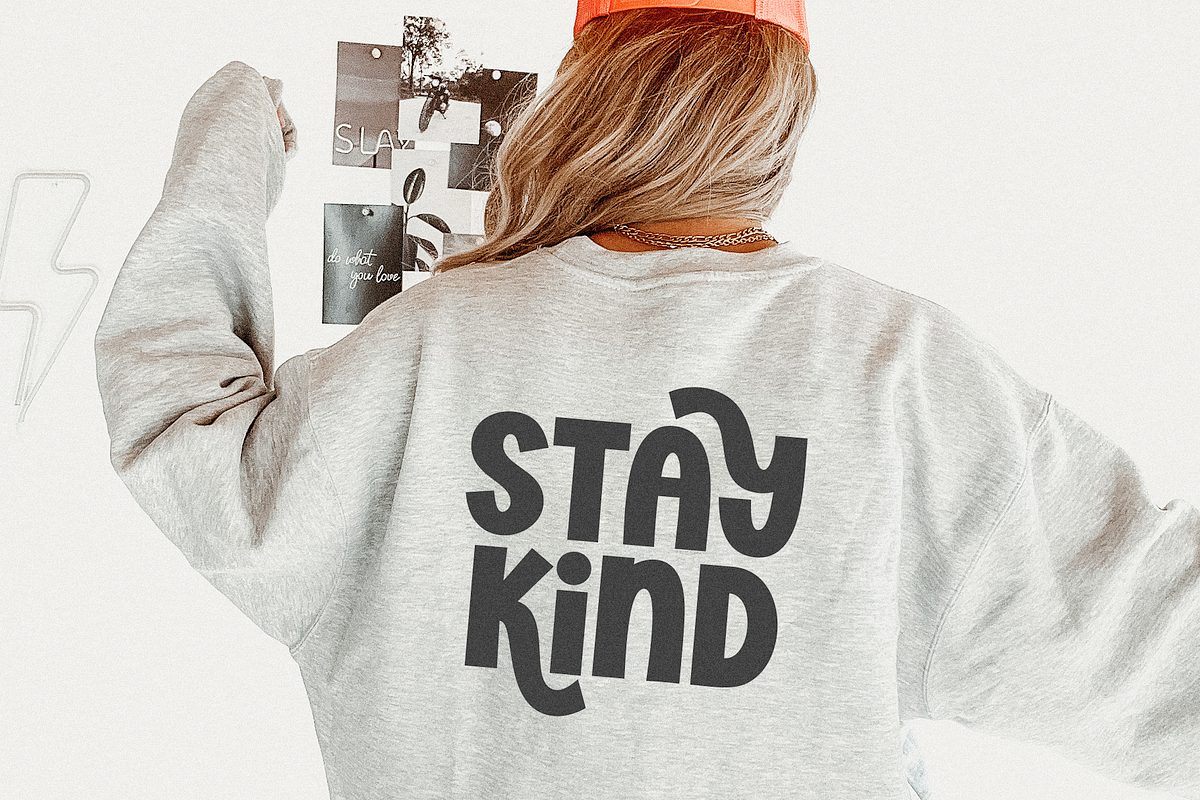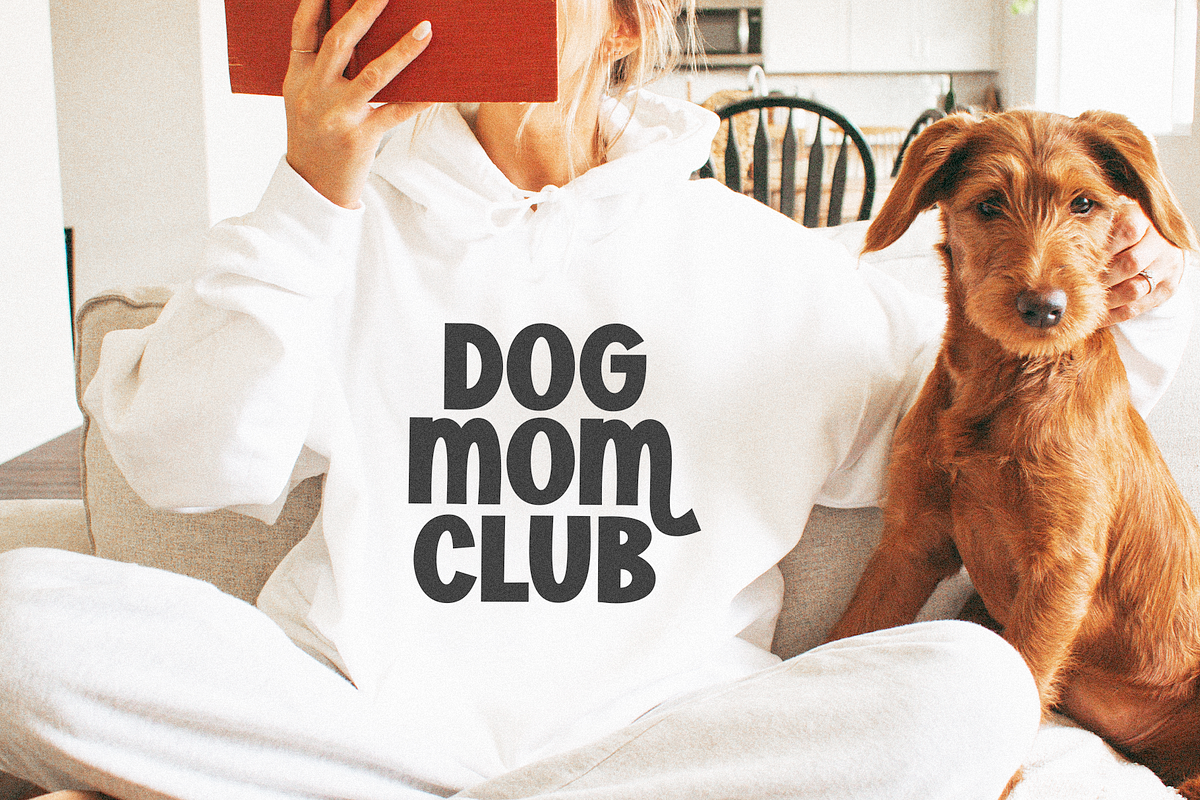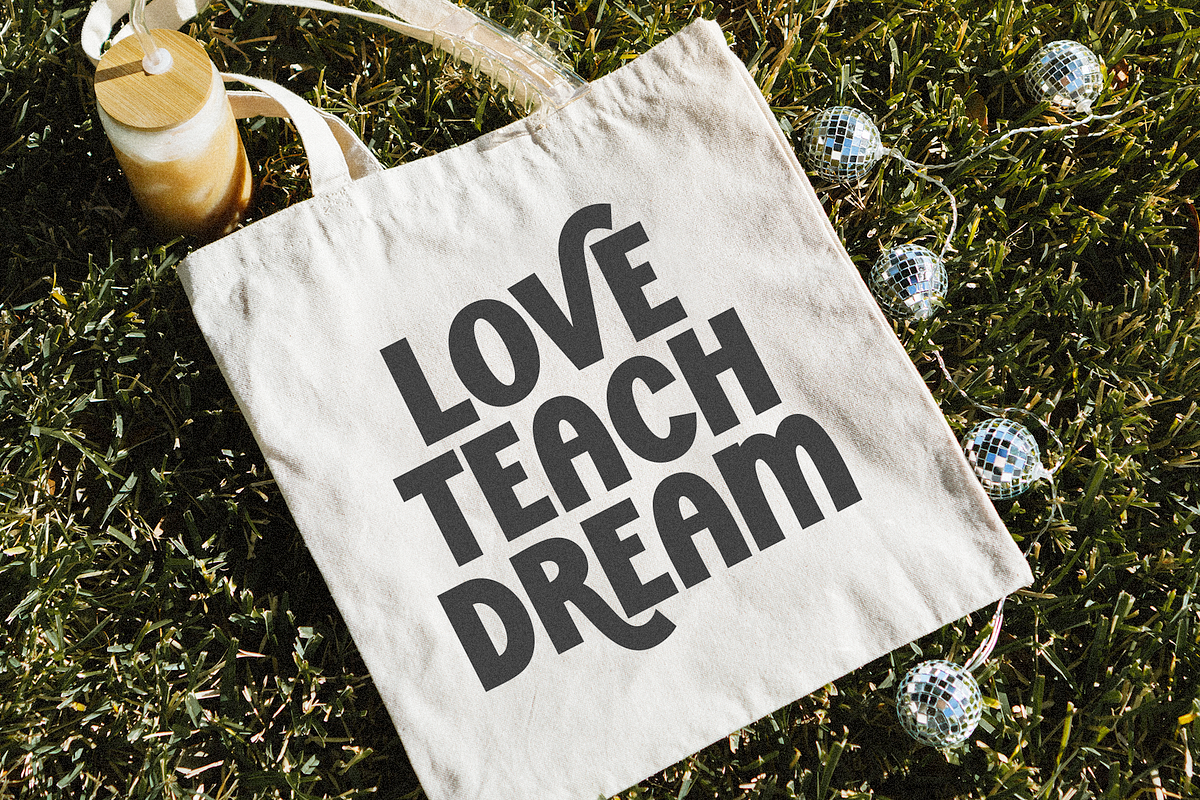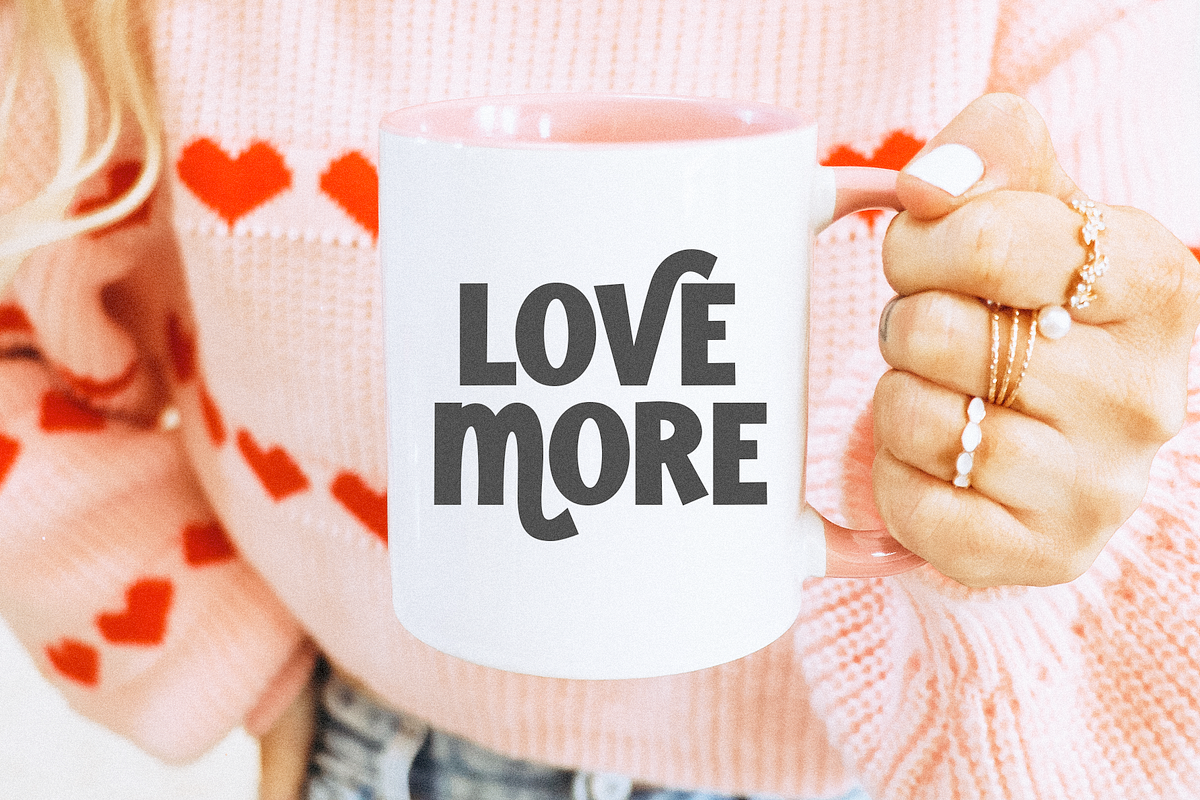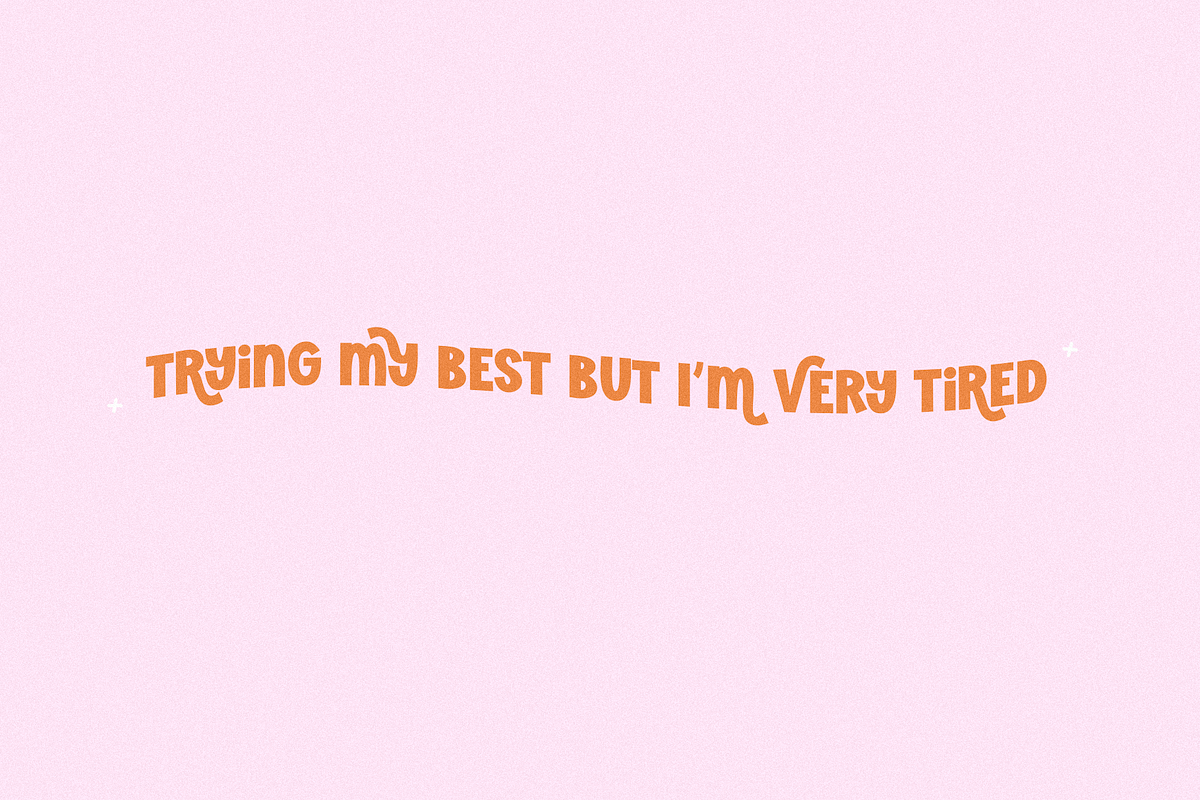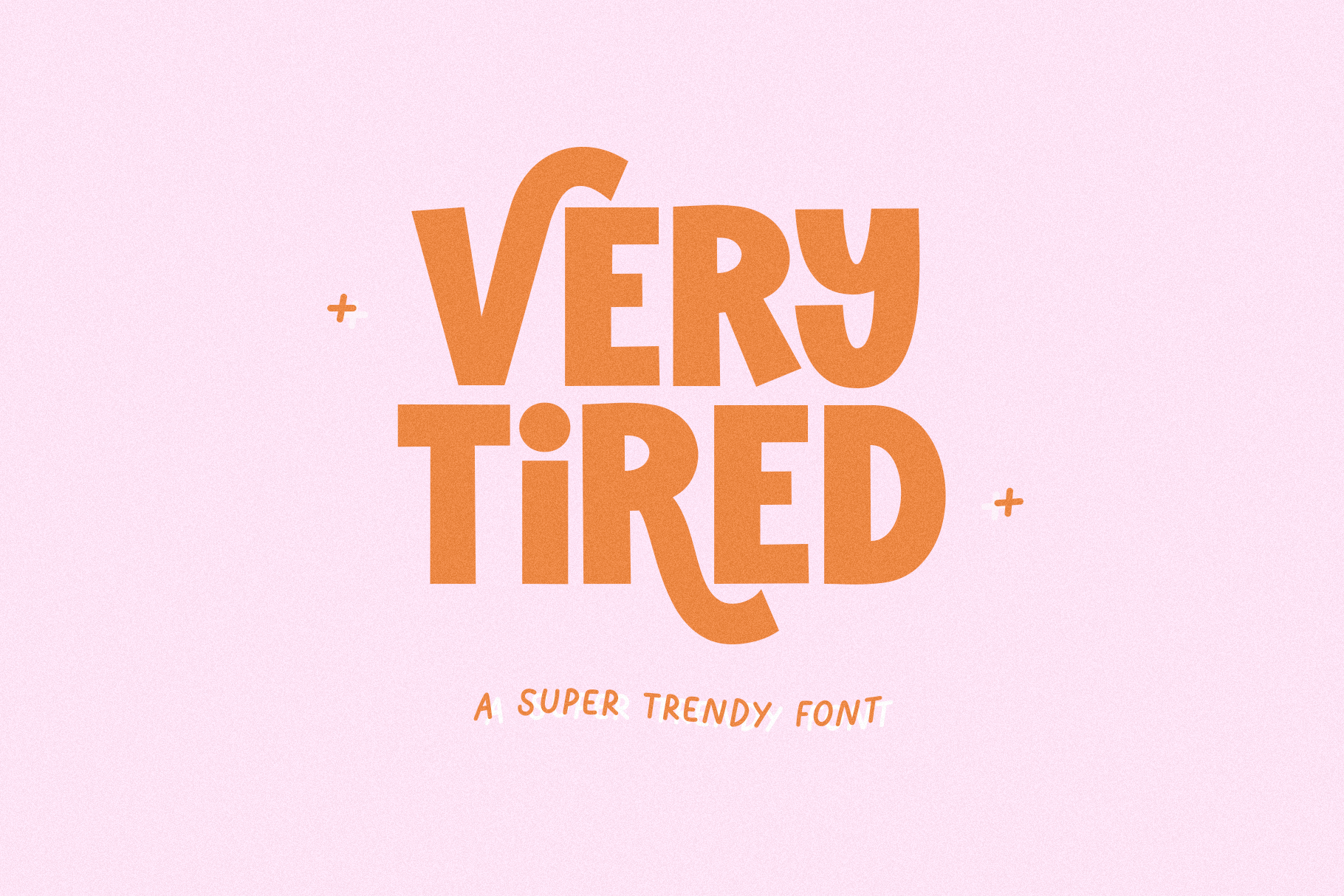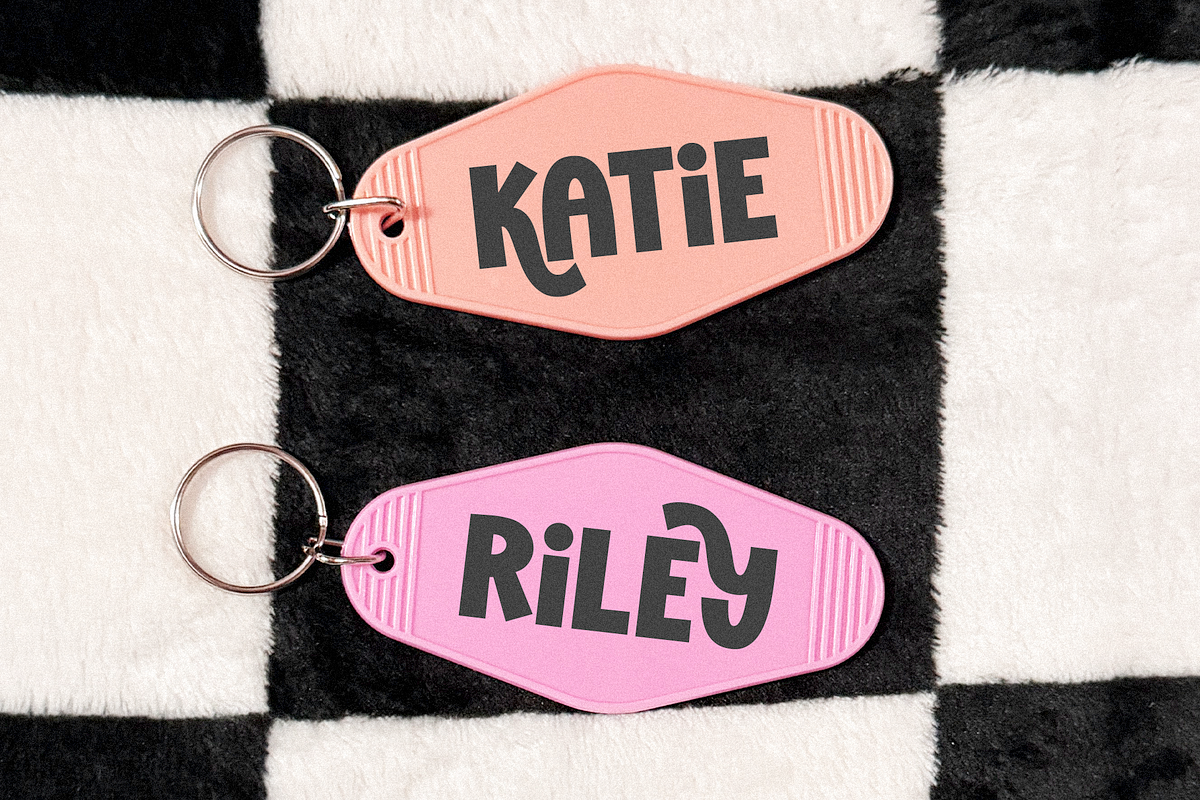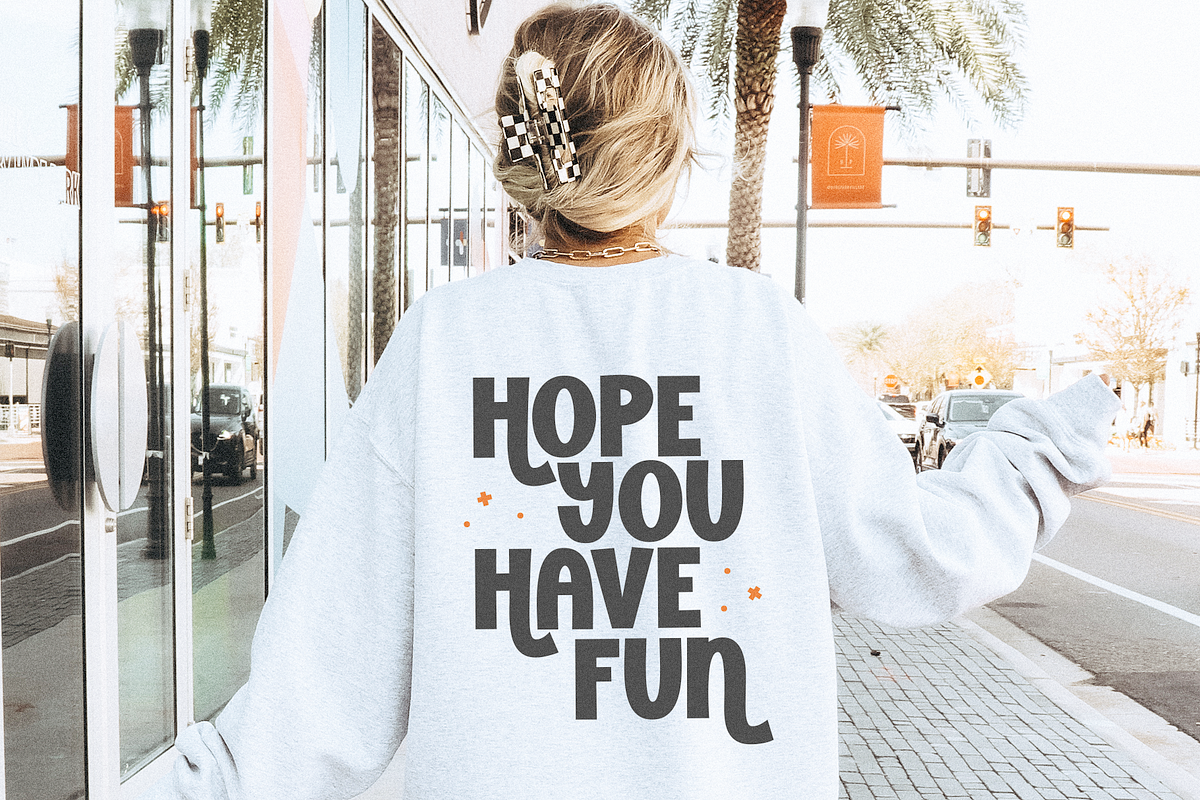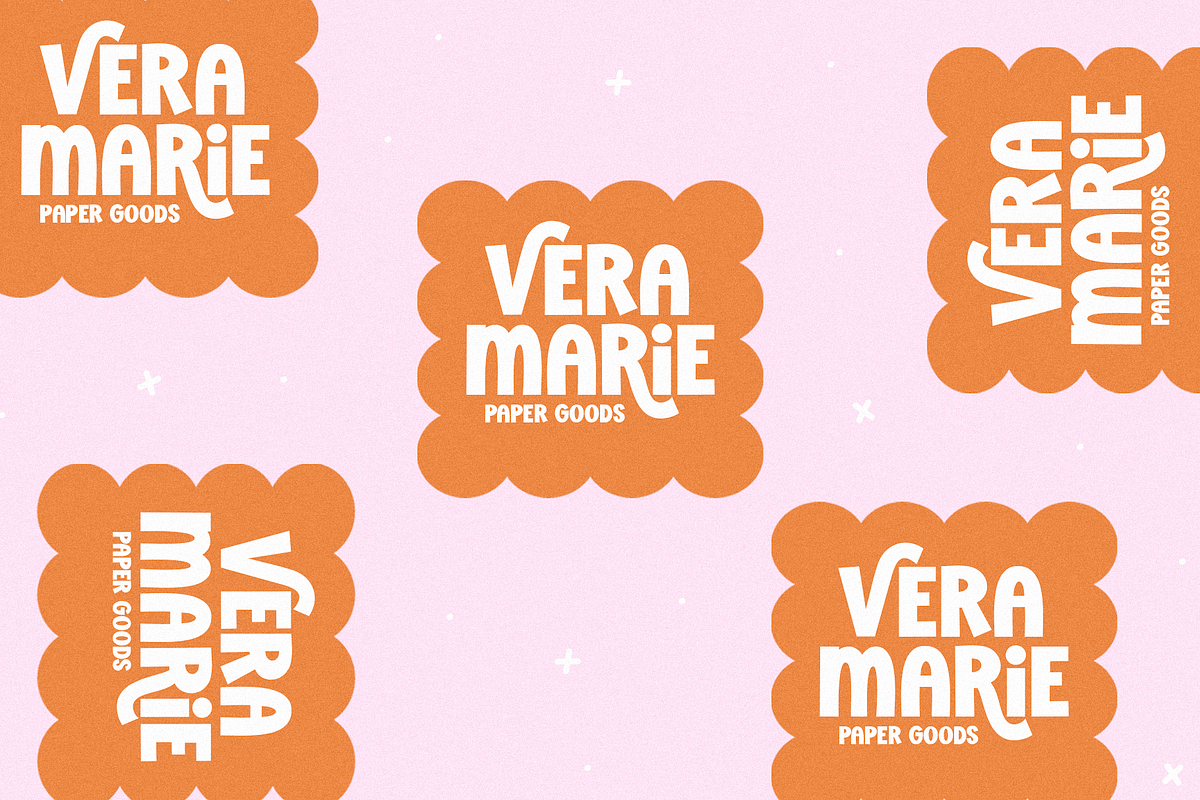
Very Tired | Trendy Font
Very Tired is a block font with fun, swooping letters.
This is an ALL CAPS font
Use capital letters for swash letters - a, h, k, m, n, r, v, w, y